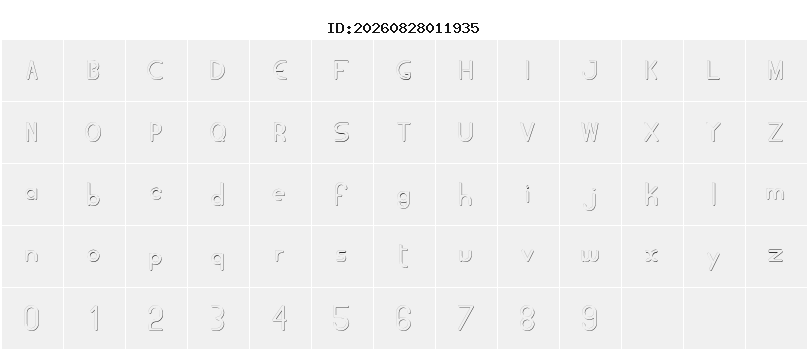
• Font Name: Tubolação
• Font ID: DaniloMiguel: Tubolação: 2015
• Full Font Name: Tubolao
• Version: Version 1.000 2015 initial release
• PostScript Name: Tubolao
• Character Count: 139
• Designer: Danilo Miguel
• Manufacturer: Danilo Miguel
About Tubolação.otf
Tubolação.otf is a modern, elegant sans-serif font designed for ultimate readability and visual harmony. Perfect for branding, headlines, web design, and print materials.